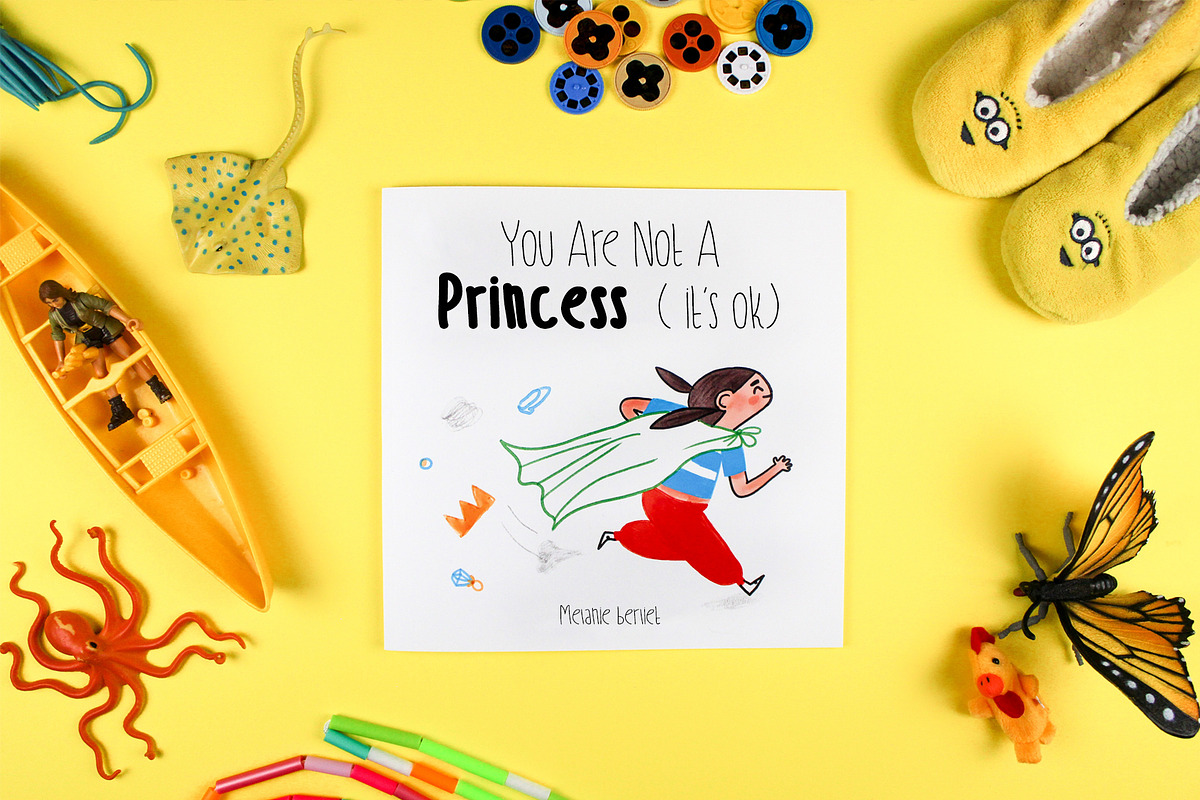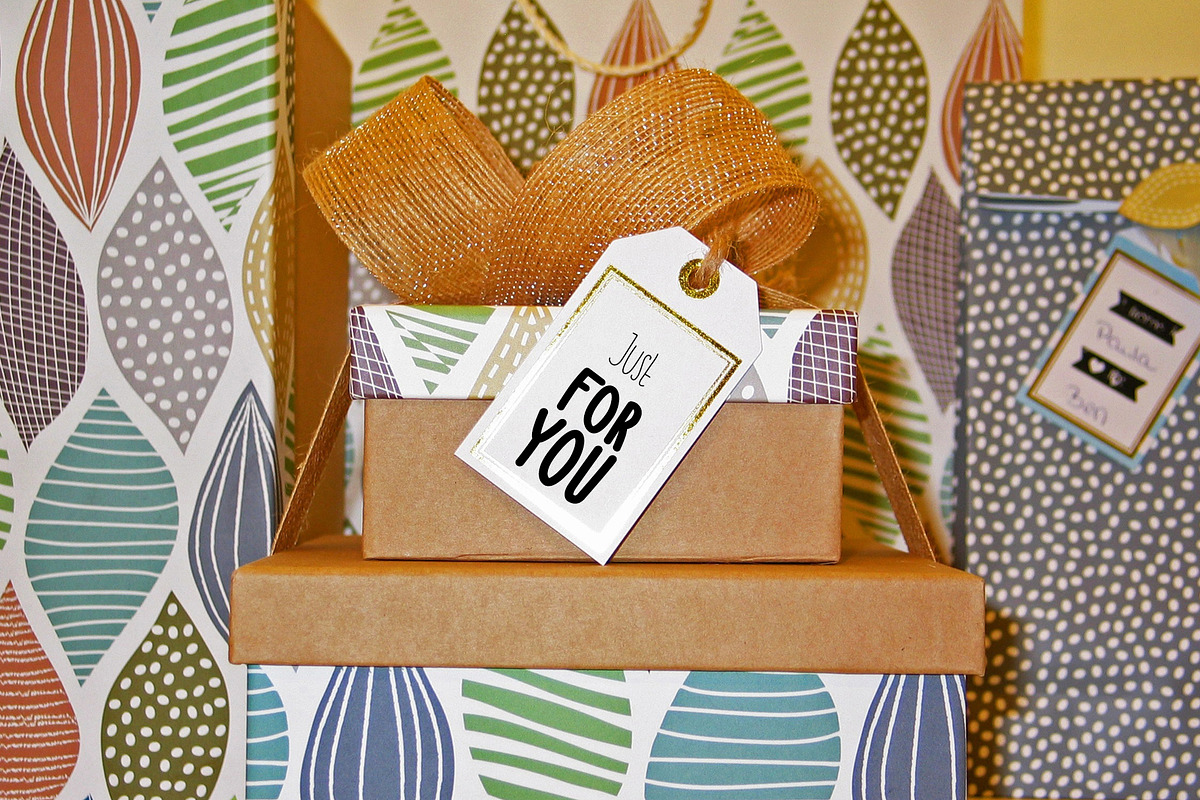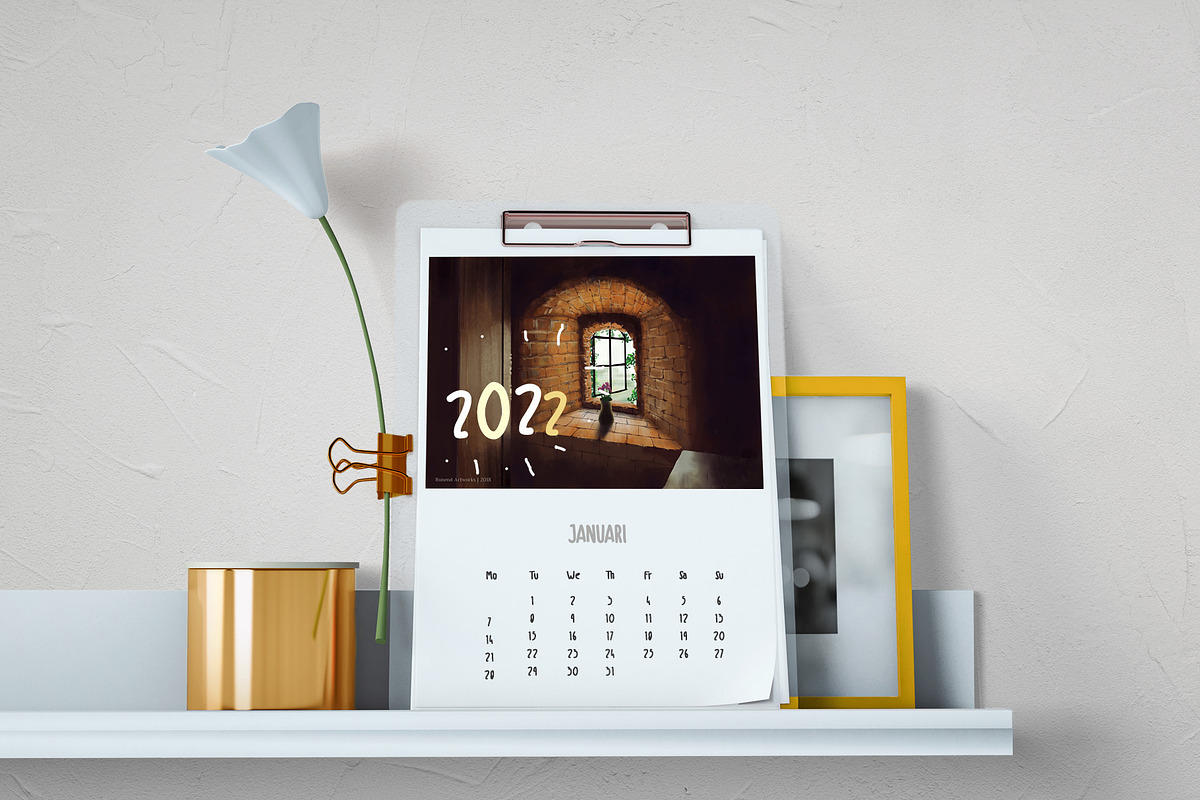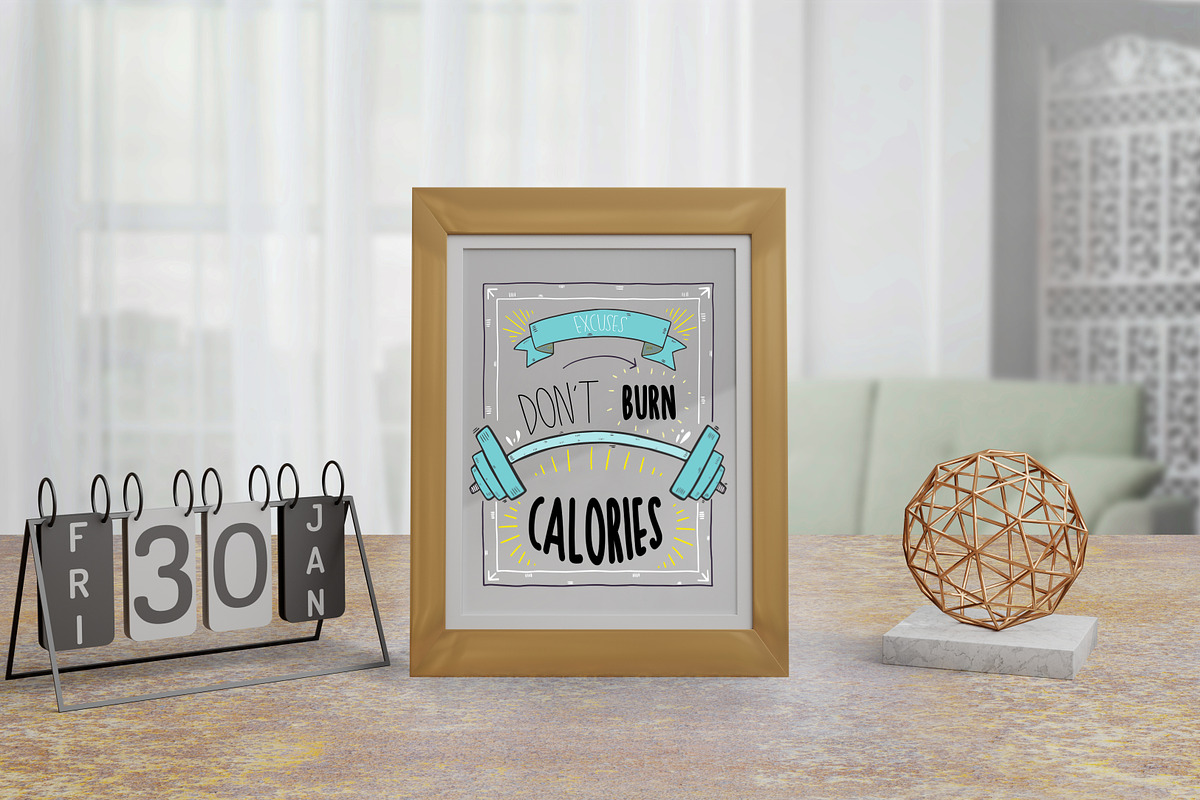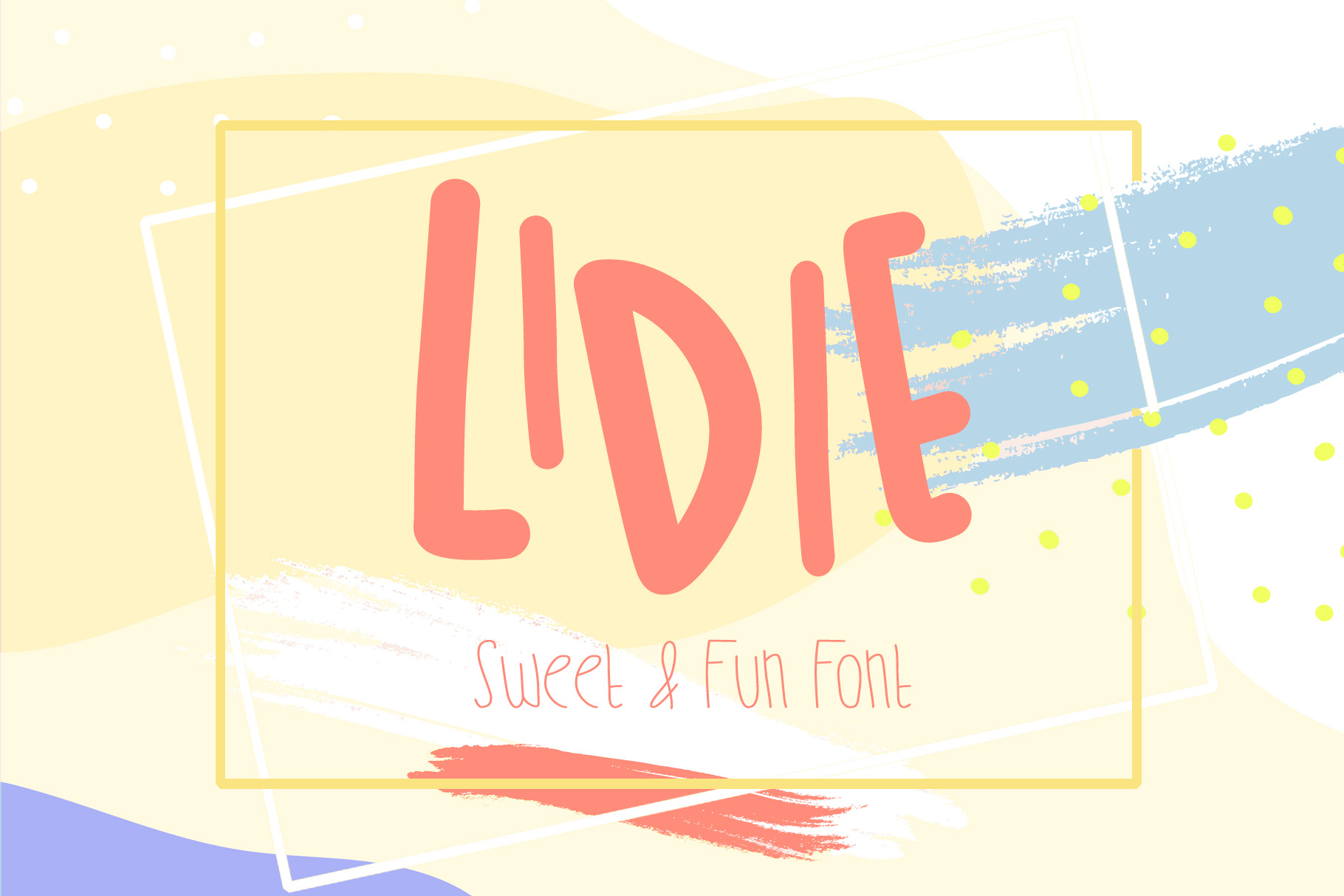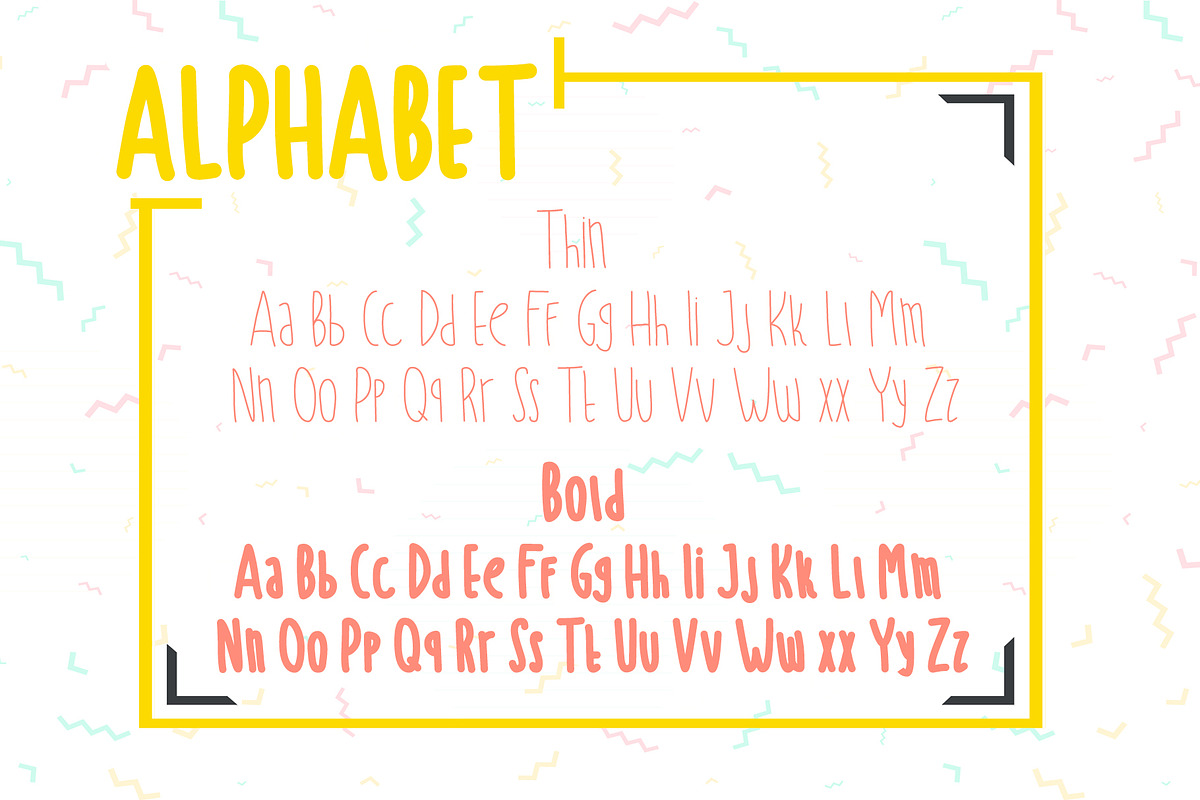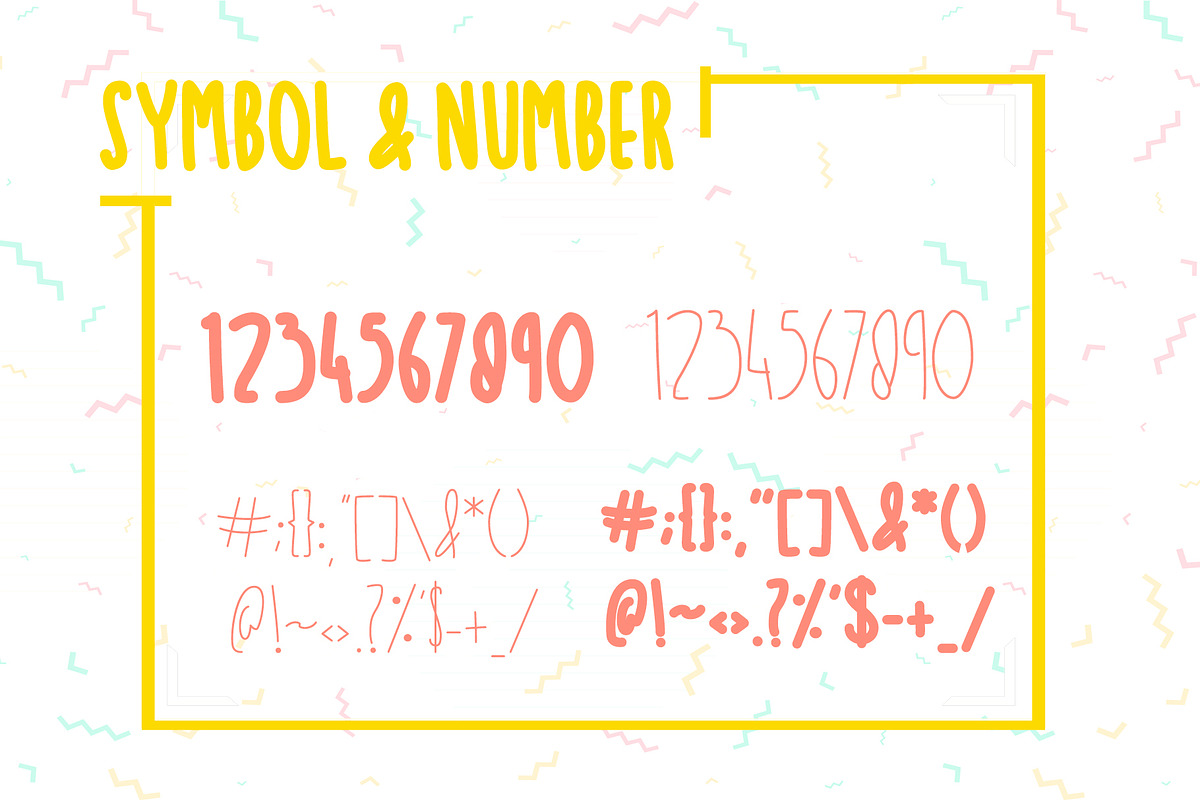
Lidie Font - sweet and fun
Lidie font - sweet and fun with family font to enhance your design look, include woff format too - take your pick :) Perfect for playful quotes, packaging, branding, invitations, greeting cards and so much more.